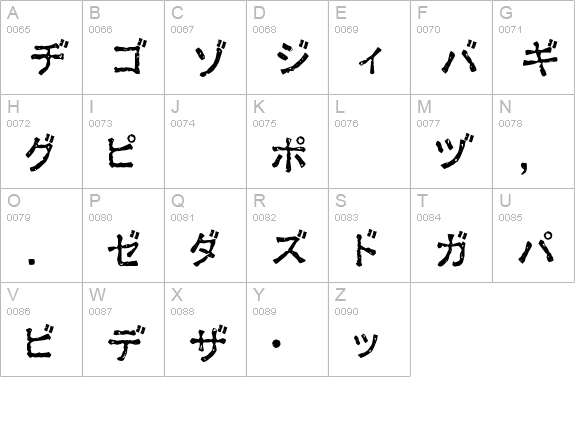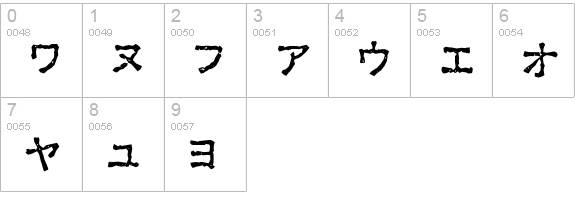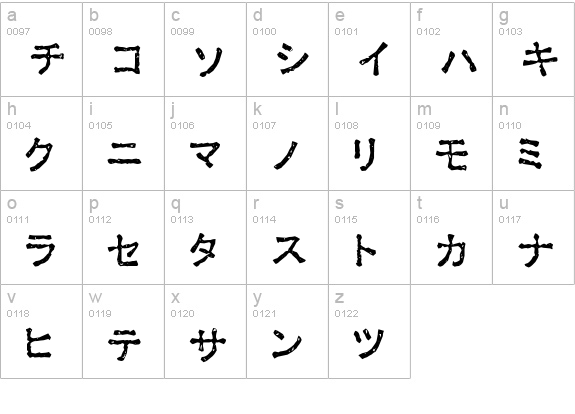
Ex Kata Damaged Font Details
Ex Kata Damaged font is a bold and edgy typeface that exudes a sense of ruggedness and character. The unique design features distressed and weathered elements, giving it a rough and worn appearance that adds a touch of authenticity to any project. This font is perfect for creating eye-catching headlines, posters, and branding materials that demand attention. Best of all, Ex Kata Damaged font is completely free to download at FontsMarket.com. You can easily add this versatile typeface to your collection without breaking the bank. Whether you're a seasoned designer looking to spice up your projects or a hobbyist seeking a standout font for personal use, Ex Kata Damaged font offers endless possibilities for creative expression. Download it today and unleash your creativity with this one-of-a-kind font.